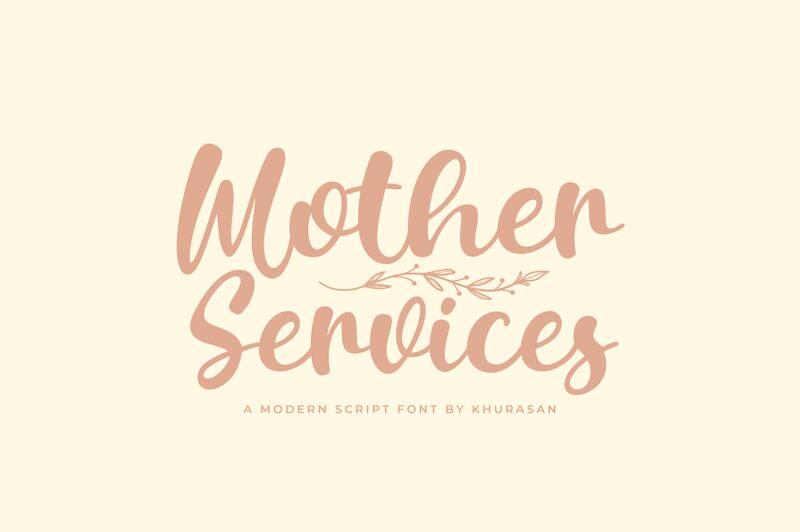
Mother Services
Embracing the fluid elegance of the handwritten script, the "Mother Services" font by Khurasan captivates with its bold and distinctive charm. This typeface exudes a sense of warmth and personal touch, inviting the viewer to engage with its expressive curves and dynamic strokes.
The font's versatile nature allows it to seamlessly transition between a variety of design applications, from bold and impactful branding to refined editorial layouts. With its striking presence and versatile appeal, the "Mother Services" font by Khurasan offers a compelling typographic solution for those seeking to elevate their visual narratives with a touch of artisanal flair.